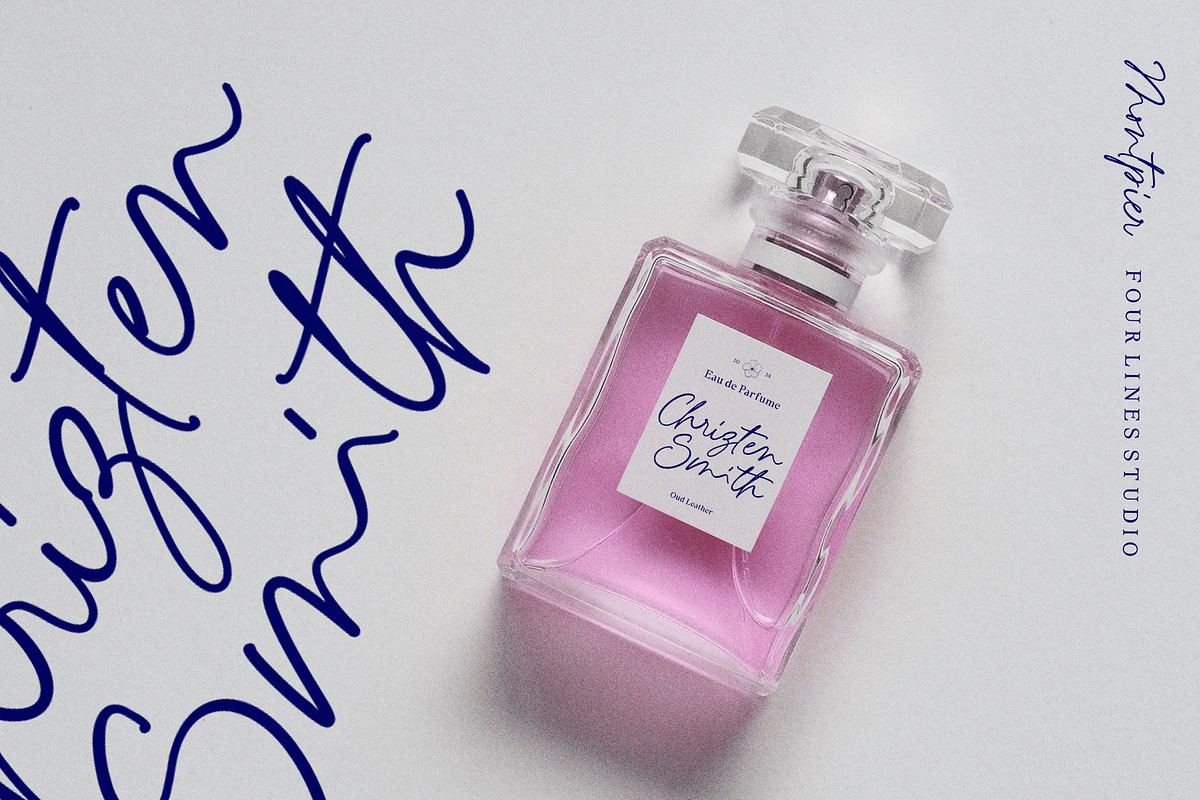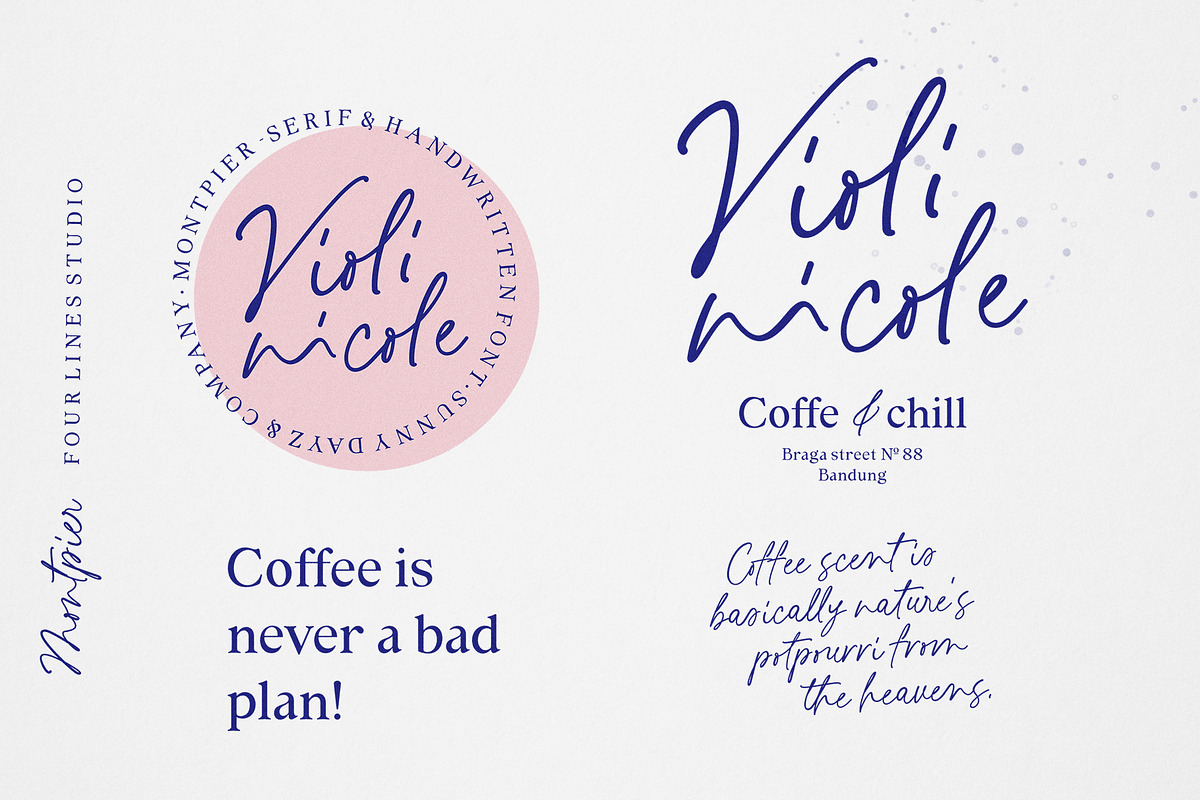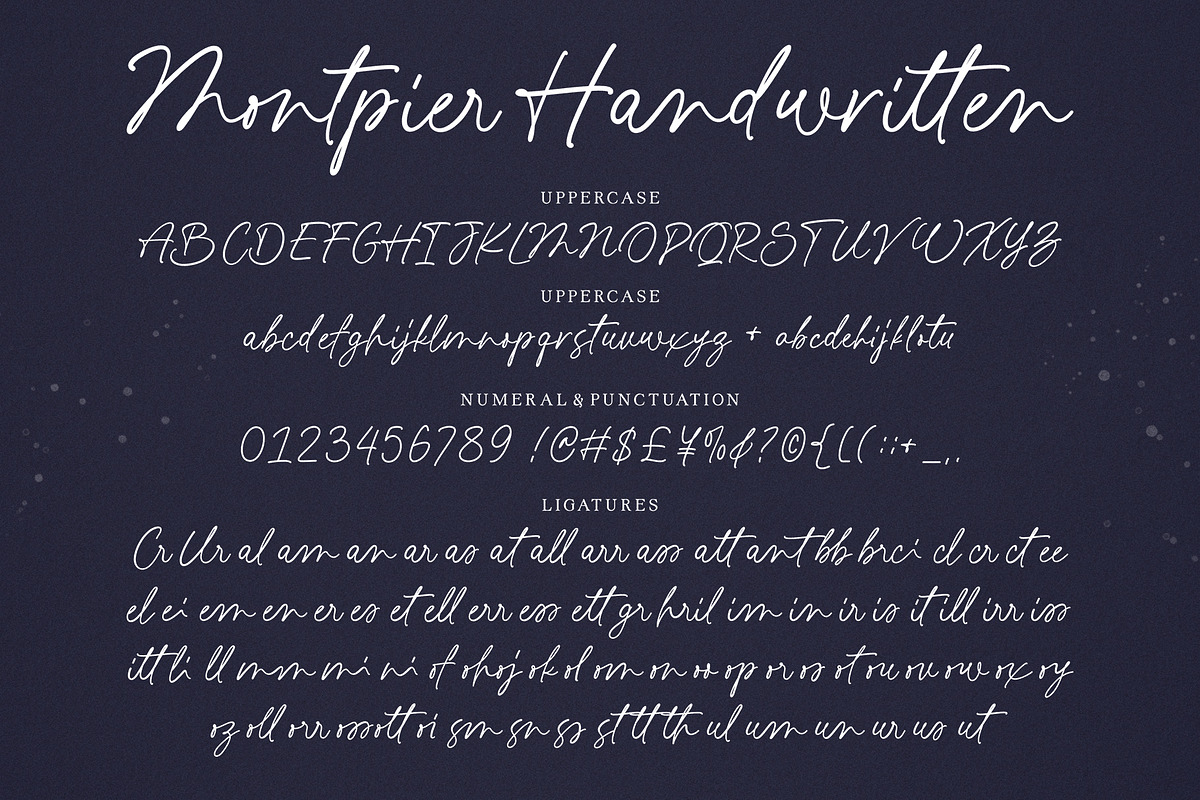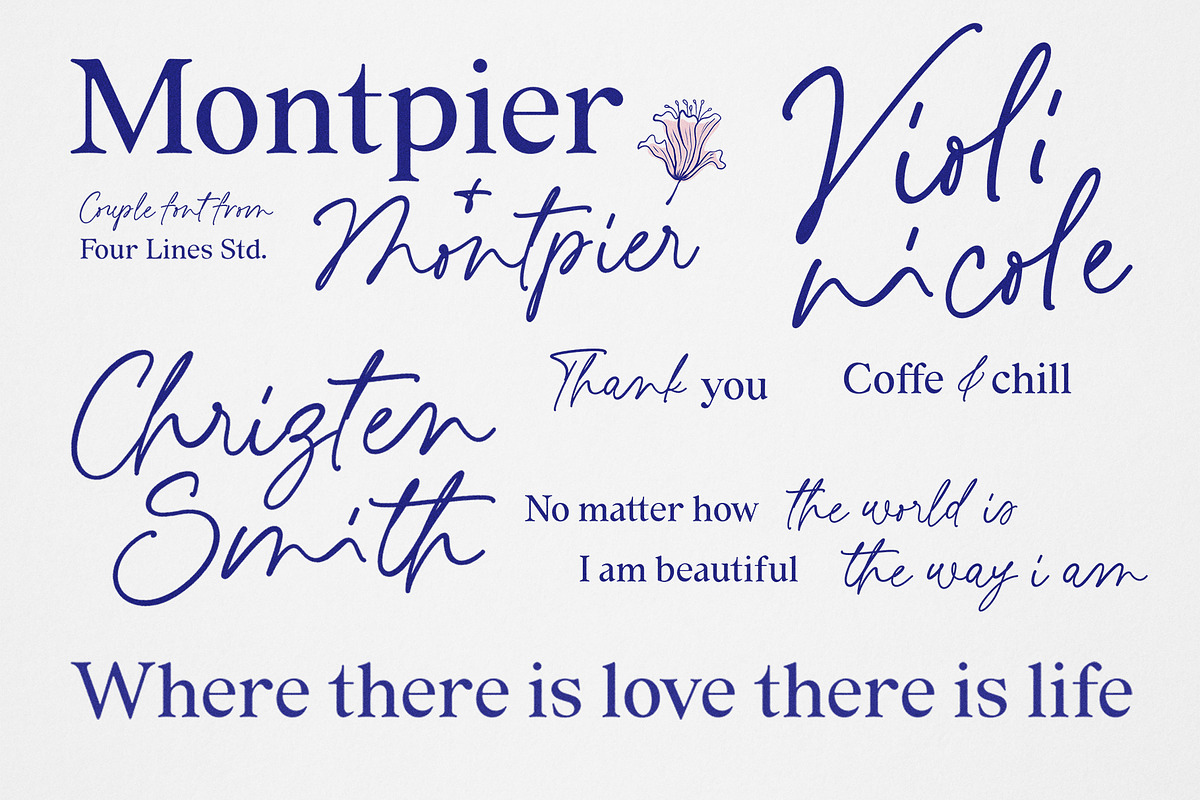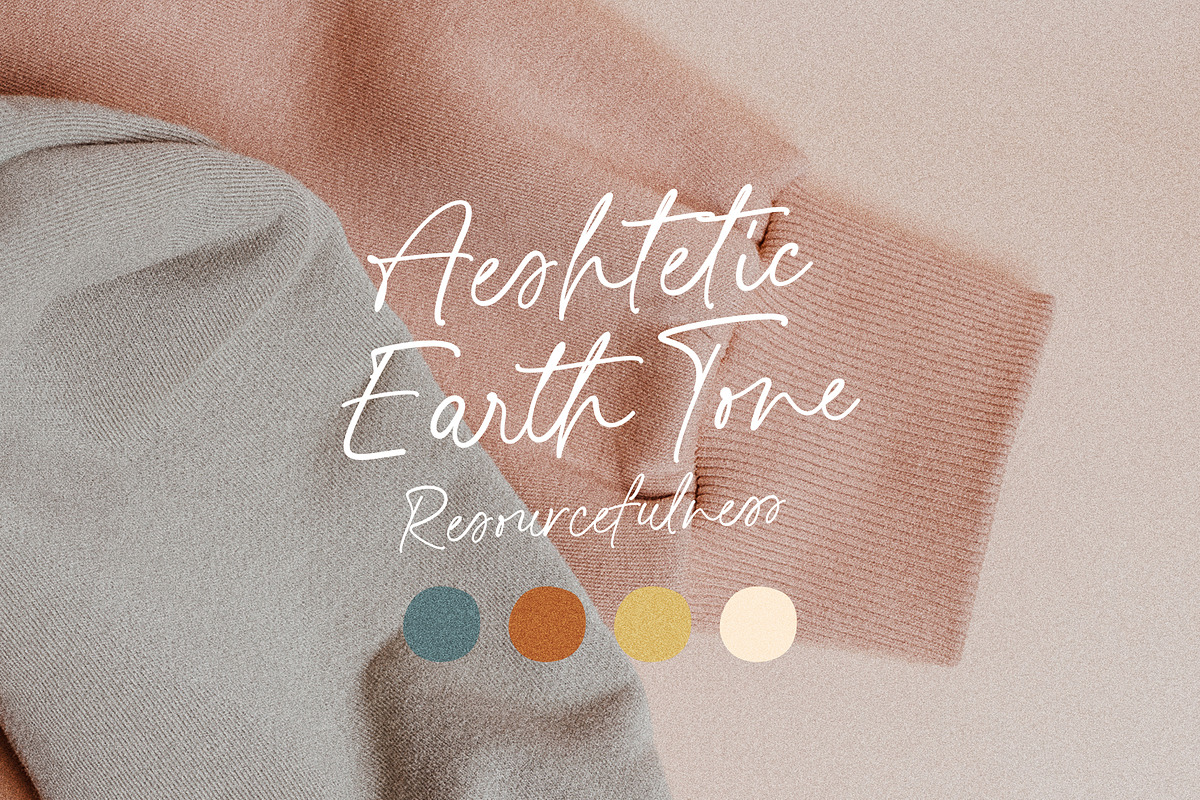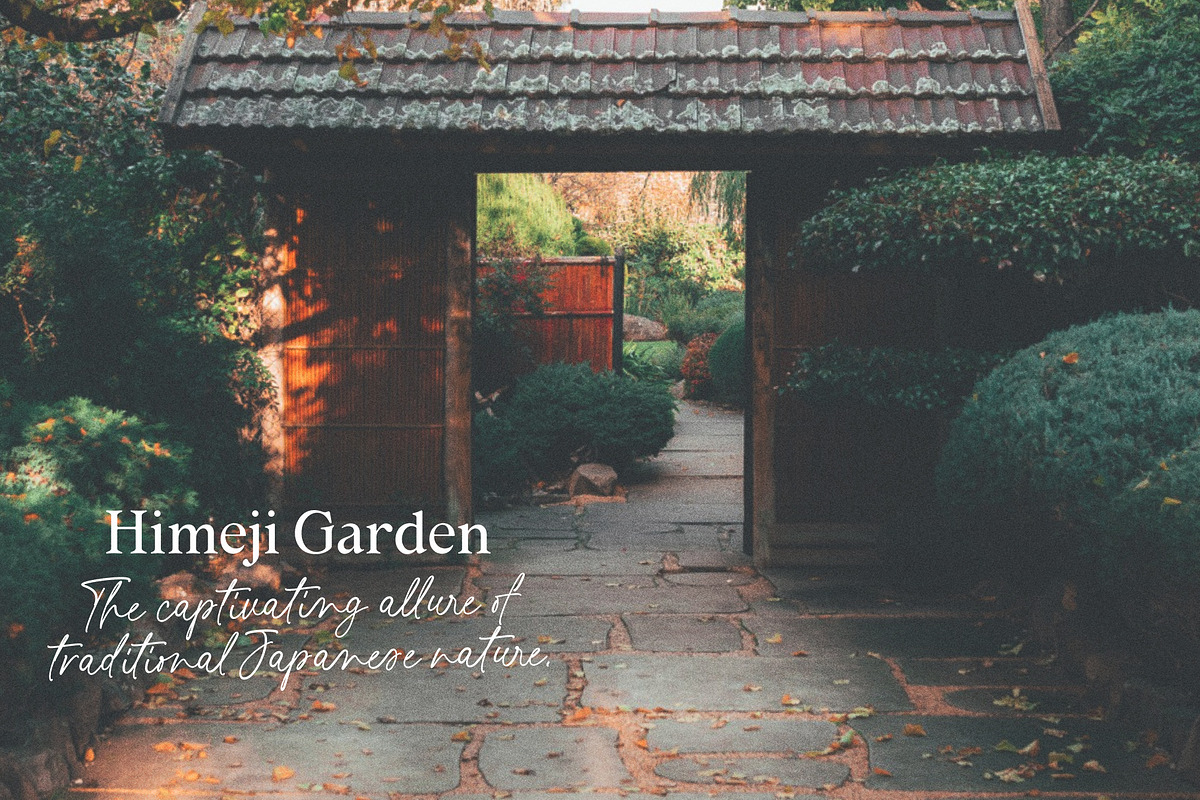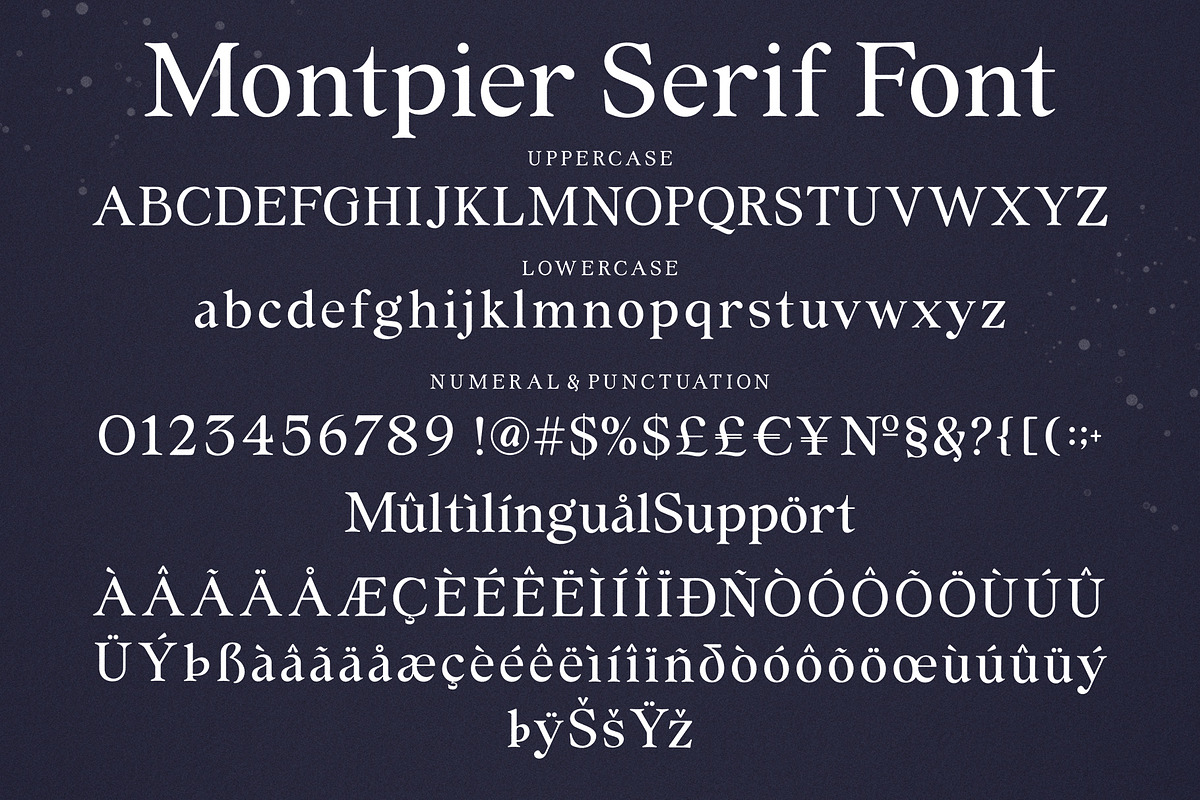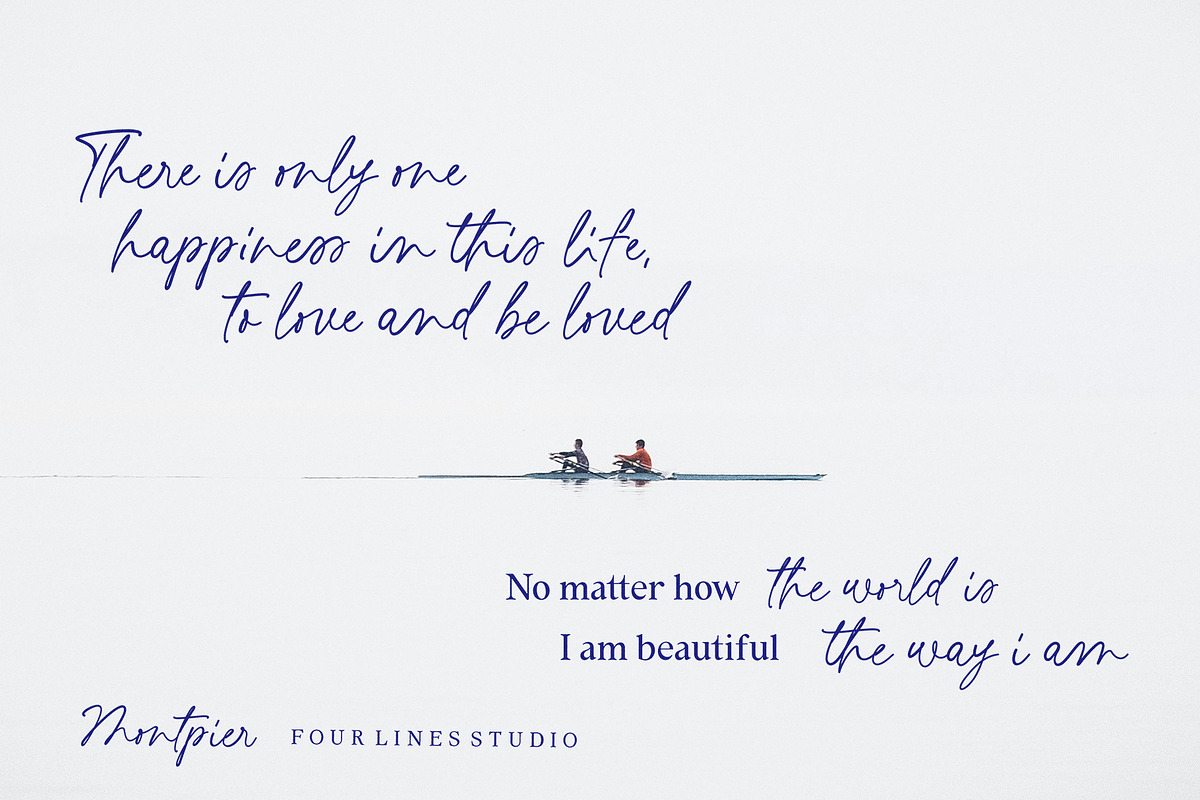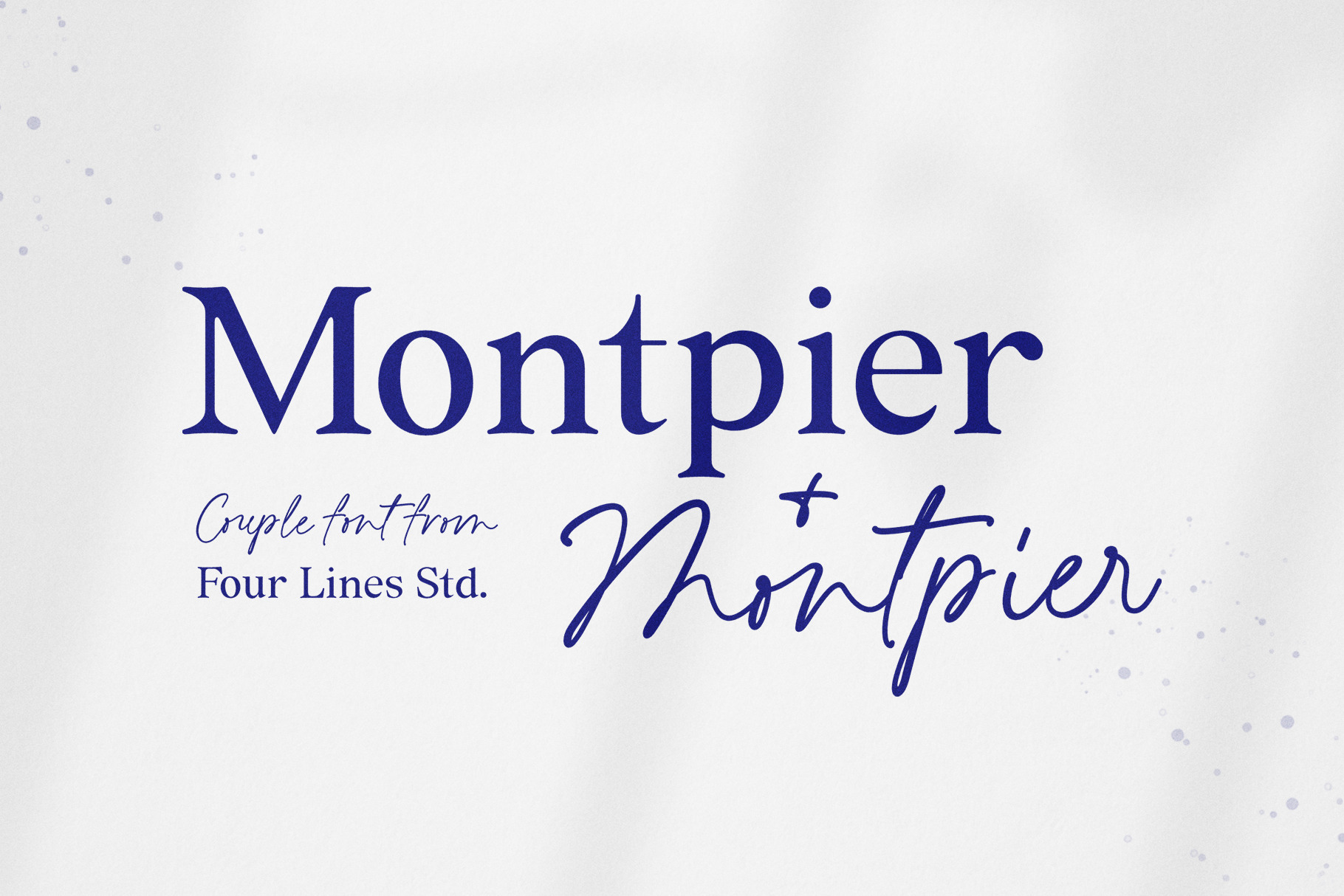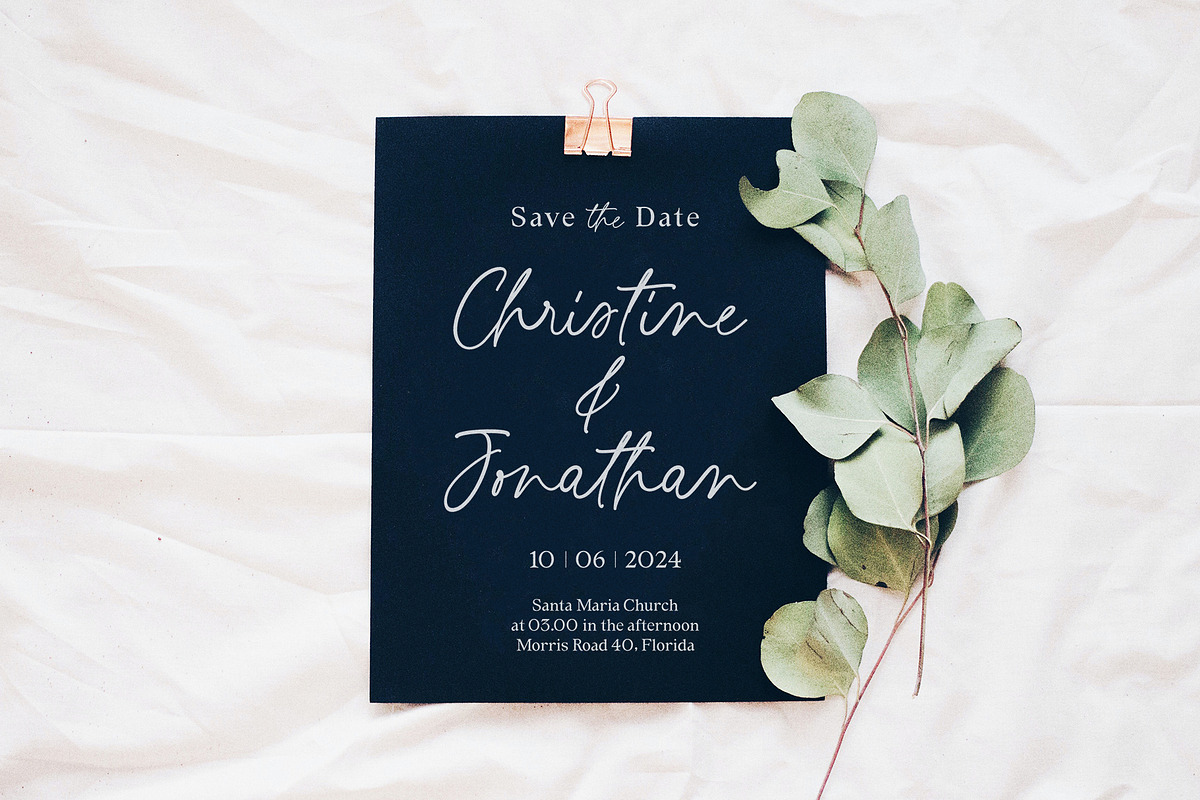
Introducing the Montpier Font Duo. Montpier presents an exquisite font duo comprising a signature script and a complementary serif typeface, harmoniously crafted for seamless integration into your upcoming design projects. This font duo boasts OpenType features, encompassing ligatures, alternates, numerals, punctuation marks, and multilingual support, enhancing its versatility and usability across various design contexts. What’s included: - OTF - TTF - WOFF